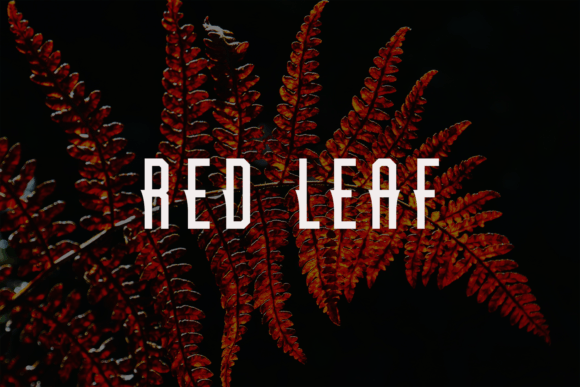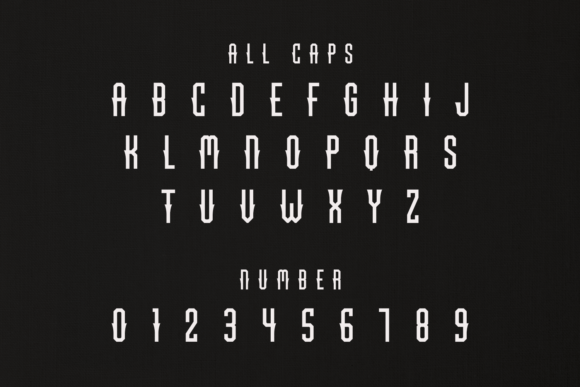
Introduction to Kedleon Font
As a designer, there’s nothing quite like that moment of inspiration when a project starts to come together. The fonts, the colors, the textures – everything falls into place and you know you’ve got something special. And that’s exactly what happens when you add the Kedleon Font to your creative arsenal.
This fun and unique display font has the power to elevate any design, whether it’s a logo, a social media graphic, or a entire branding campaign. With its high quality design and transparent background, the Kedleon Font is the perfect resource for designers looking to add a touch of personality to their projects.
Key Features of Kedleon Font
- High-quality font with a transparent background, ideal for creative projects and design resources.
- Unique characteristics include a modern and elegant design, perfect for creating visually appealing typography in creative projects.
- Can be used in a variety of design applications, including logos, branding, and creative projects, thanks to its high-quality design and transparent background.
Honest Review: Kedleon Font
I recently came across the Kedleon Font, and I must say it’s a great addition to any designer’s toolkit. One of the standout features of this font is its high quality and professional look, making it perfect for creative projects that require a touch of sophistication.
One of the things that works well with the Kedleon Font is its versatility. It can be used for both personal and commercial projects, and its transparent background makes it easy to use on any design resource. Whether you’re working on a logo, business card, or brochure, this font is sure to impress.
- ✨ Highly legible and easy to read
- ✨ Great for creative projects that require a professional look
However, there are a few limitations to keep in mind. The Kedleon Font only comes in a limited number of weights, which may not be suitable for all design projects. Additionally, while the transparent background is a great feature, it can be a bit tricky to work with if you’re not familiar with using it.
Overall, I would highly recommend the Kedleon Font to any designer looking for a high-quality, versatile font for their creative projects. While it may have a few limitations, its benefits far outweigh its drawbacks.
Tips for Getting the Most Out of Kedleon Font
Experiment with different font sizes and colors to achieve the desired effect. You can also combine Kedleon Font with other design elements to create a visually appealing design.
Kedleon Font is ideal for creative projects, such as logos, brochures, and business cards. Its free download feature makes it a popular choice among designers and artists.